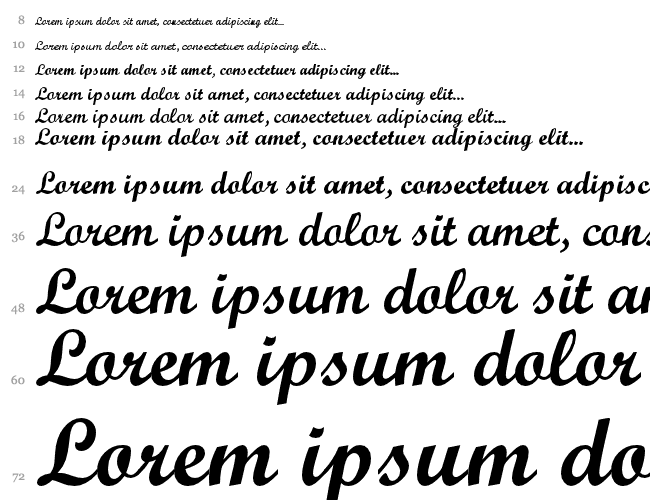
Script Mt Font Family . You can download the script mt font to your computer. Monotype script mt contains 1. 'find my font' is an easy to use application for identifying fonts in digital images. No license available fonts similar to script mt. Monotype script mt font family was designed by monotype design studio and published by monotype. A reproduction of the common french scripts of the nineteenth century. Uncategorized 266 downloads download license. Script mt bold is an ideal font choice for adding a playful touch to your designs, featuring a font subfamily categorized as regular. Cut by stephenson blake in 1905, by the inland type. Script mt font family designed by unknown designer has a total of 1 different styles.
Monotype script mt font family was designed by monotype design studio and published by monotype. No license available fonts similar to script mt. Script mt font family designed by unknown designer has a total of 1 different styles. You can download the script mt font to your computer. Uncategorized 266 downloads download license. Cut by stephenson blake in 1905, by the inland type. A reproduction of the common french scripts of the nineteenth century. 'find my font' is an easy to use application for identifying fonts in digital images. Script mt bold is an ideal font choice for adding a playful touch to your designs, featuring a font subfamily categorized as regular. Monotype script mt contains 1.
Script Mt Font Family Uncategorized 266 downloads download license. A reproduction of the common french scripts of the nineteenth century. Cut by stephenson blake in 1905, by the inland type. 'find my font' is an easy to use application for identifying fonts in digital images. Uncategorized 266 downloads download license. No license available fonts similar to script mt. Monotype script mt contains 1. Script mt font family designed by unknown designer has a total of 1 different styles. Script mt bold is an ideal font choice for adding a playful touch to your designs, featuring a font subfamily categorized as regular. Monotype script mt font family was designed by monotype design studio and published by monotype. You can download the script mt font to your computer.